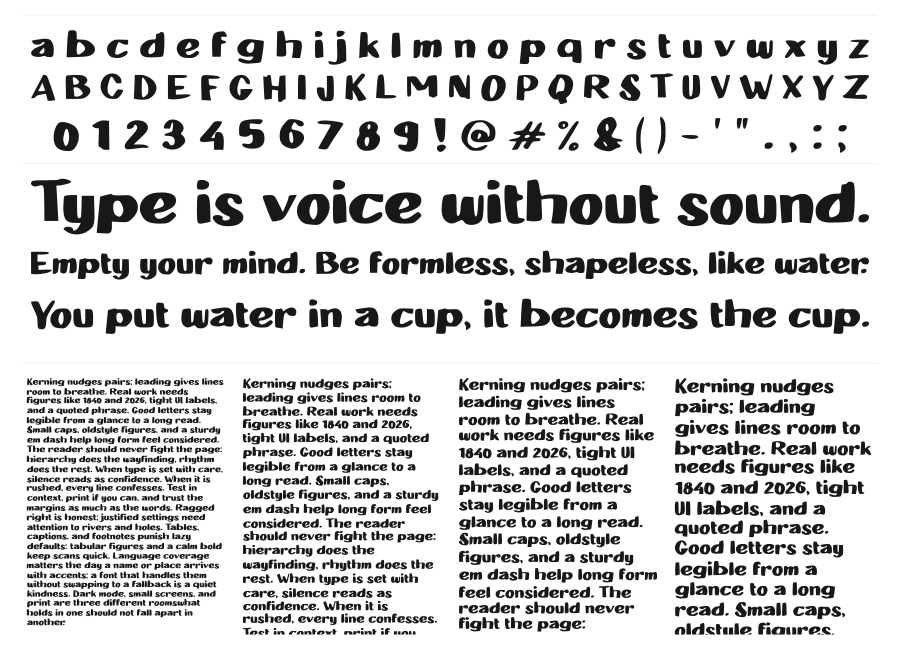
b Boba Popsicle
b Boba Popsicle is a chunky, hand-drawn display font with bold strokes and bouncy, rounded character shapes. Its casual, comic energy makes it feel like something scrawled on a summer menu or a kid's birthday banner. The heavy weight and irregular curves keep it lively at any large size.